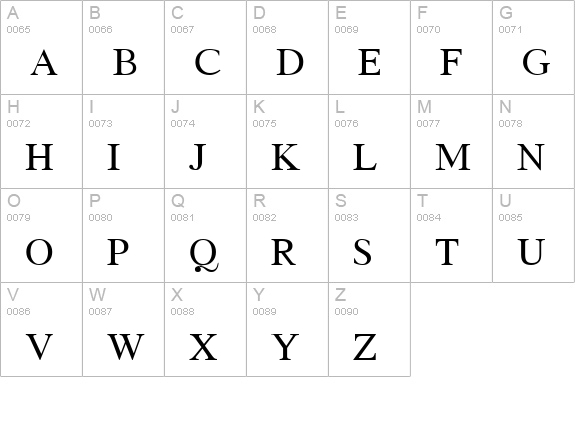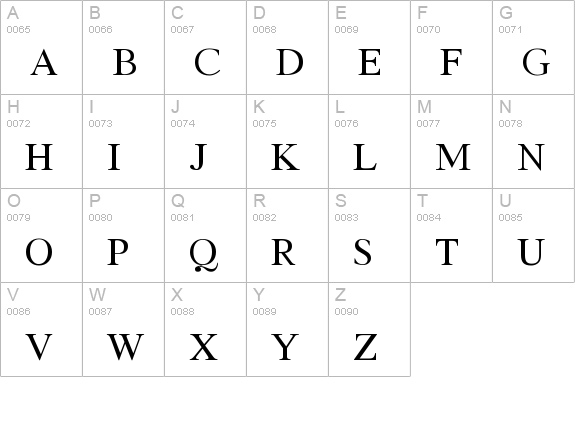
Saratoga Font Details
Introducing Saratoga, a stunningly elegant and versatile font that is sure to captivate the eyes and elevate any design project. With its delicate letterforms and exquisite attention to detail, Saratoga combines classic sophistication with a contemporary twist, making it the perfect choice for a wide range of creative endeavors. What sets Saratoga apart is not only its impeccable design but also the fact that it is freely available to download at FontsMarket.com. Yes, you read that right – this exceptional font can be yours without any cost, allowing you to unleash your creativity without limitations. Whether you are working on a branding project, designing a logo, crafting invitations, or even creating stunning typography artwork, Saratoga will effortlessly add a touch of refinement and refinement to your work. Its graceful curves and balanced proportions create a harmonious visual experience, while its versatility ensures that it can adapt to any style or concept. The timeless elegance of Saratoga is enhanced by its extensive character set, which includes a variety of uppercase and lowercase letters, numerals, punctuation marks, and even multilingual support. This means that you can seamlessly incorporate Saratoga into projects that cater to different languages and cultures, expanding your creative possibilities even further. When it comes to the legibility of Saratoga, rest assured that it excels in this area as well. The carefully crafted letterforms ensure optimal readability, making it an ideal choice for both print and digital media. Whether it's on a book cover, a website, or a social media post, Saratoga will effortlessly catch the reader's attention and convey your message with utmost clarity. But what truly sets Saratoga apart is the emotional resonance it evokes. Its timeless beauty and refined aesthetics evoke a sense of elegance and sophistication that can elevate any design from ordinary to extraordinary. With Saratoga, your work will exude a sense of class and professionalism that will leave a lasting impression on your audience. So why wait? Don't miss out on the opportunity to enhance your design projects with the enchanting allure of Saratoga. Head over to FontsMarket.com now and download this remarkable font for free. Unleash your creativity and let Saratoga be the secret weapon in your design arsenal, taking your projects to new heights of excellence.